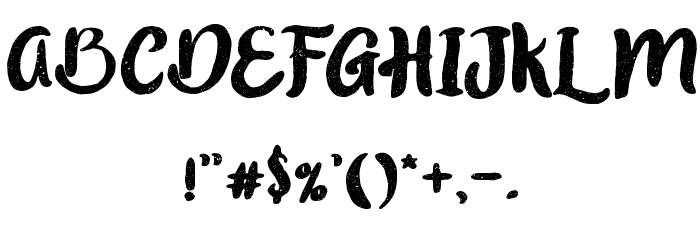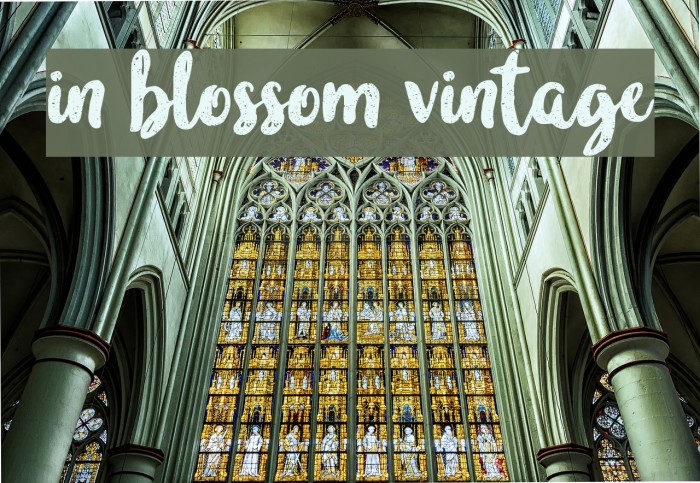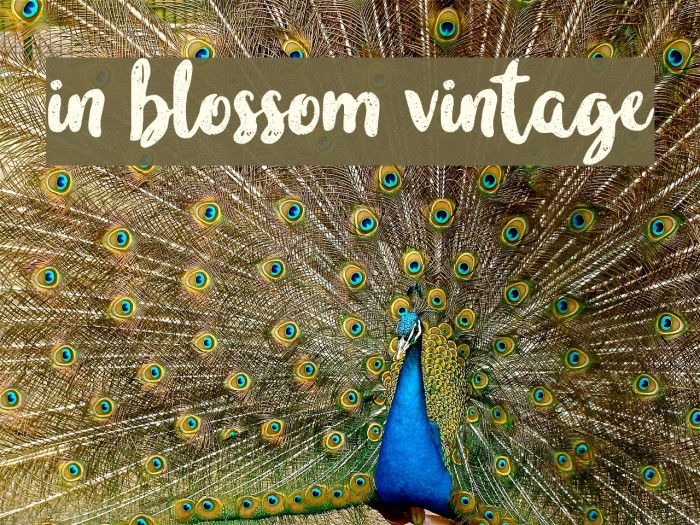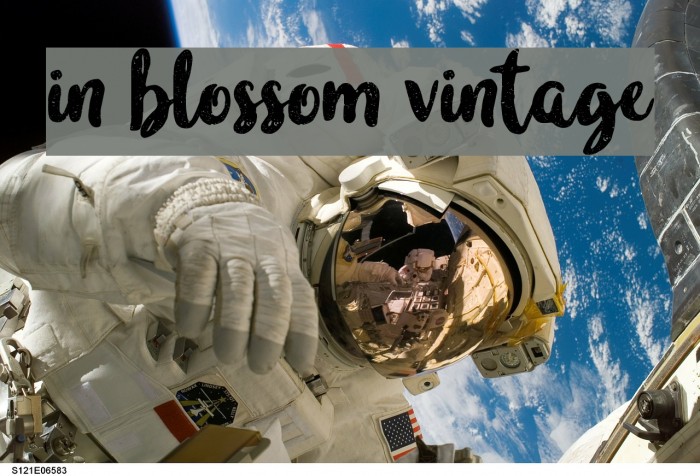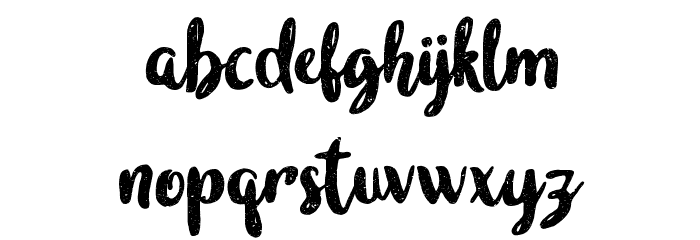
in blossom vintage Font
This font exhibits a charming vintage style with a hand-drawn appearance, characterized by its bold and flowing script. The letters have a textured, slightly distressed look, adding to its nostalgic feel. The uppercase and lowercase letters are well-balanced, with smooth curves and a playful yet elegant demeanor. The font includes a full set of uppercase and lowercase letters, numbers, and a variety of special characters, making it versatile for different design needs. Its artistic flair and unique texture make it stand out, ideal for projects that require a touch of personality and warmth.
A bold, vintage-style script font with a textured, hand-drawn appearance.
• Proposed Projects: Perfect for branding, invitations, posters, and any design that seeks a vintage or handcrafted aesthetic.